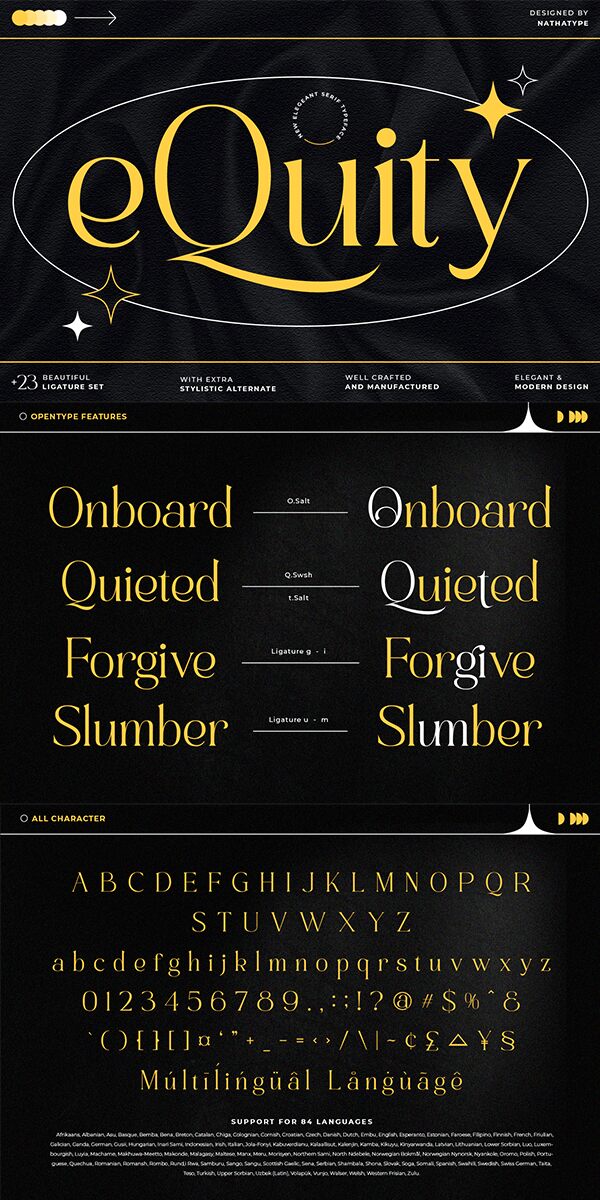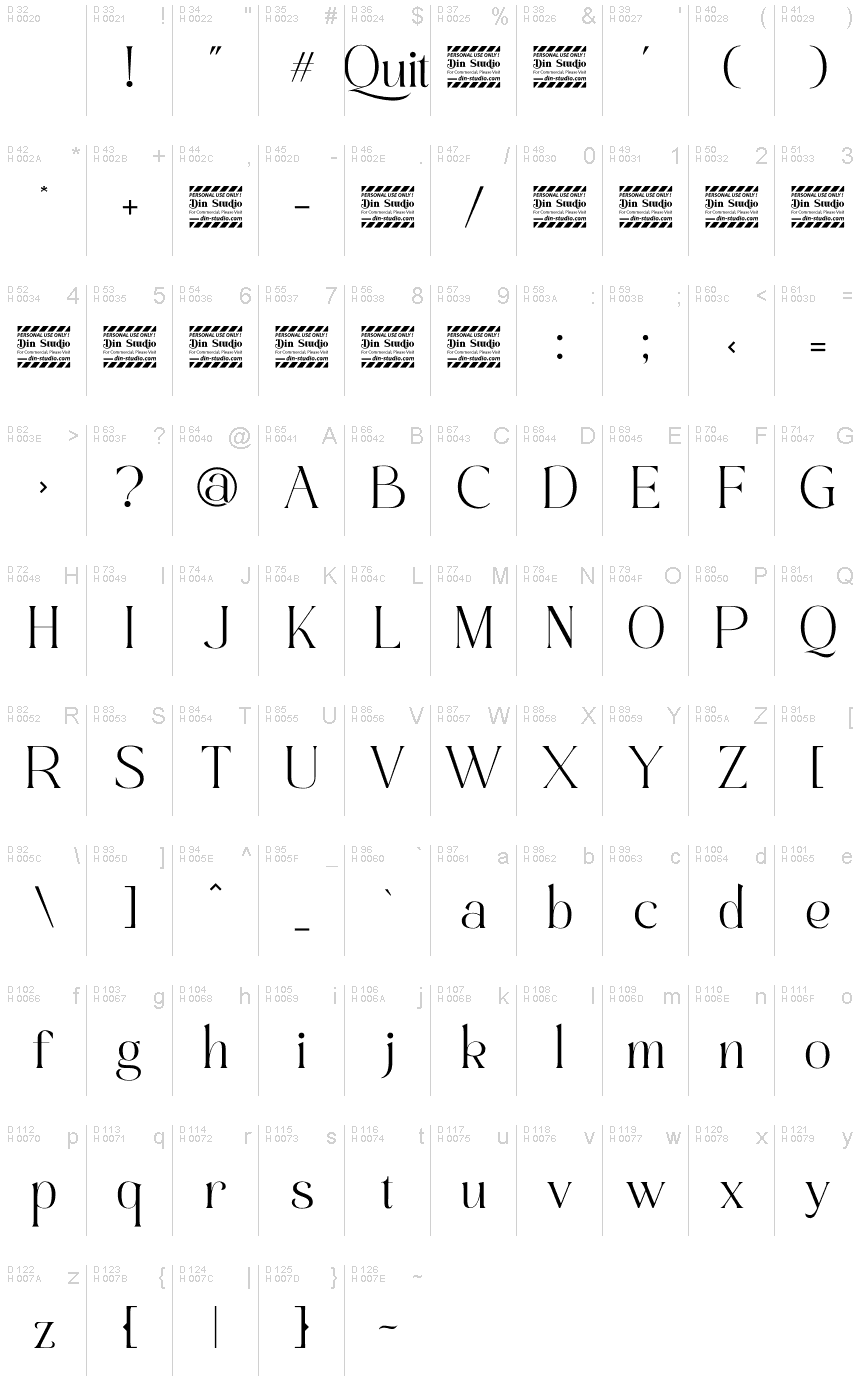
eQuity Personal Use
eQuity, designed by Din Studio, is a captivating serif font that seamlessly combines elegance with modernity. Its semi-light weight enhances readability while adding a touch of sophistication to any project.
Ideal for creating visually appealing resumes and professional documents, eQuity exudes professionalism and refinement. This versatile font type is also well-suited for website headings, book covers, and invitations, effortlessly elevating the overall aesthetic of your design.
With its clean lines and timeless appeal, eQuity is the perfect choice for projects that require a balance between classic charm and contemporary flair.